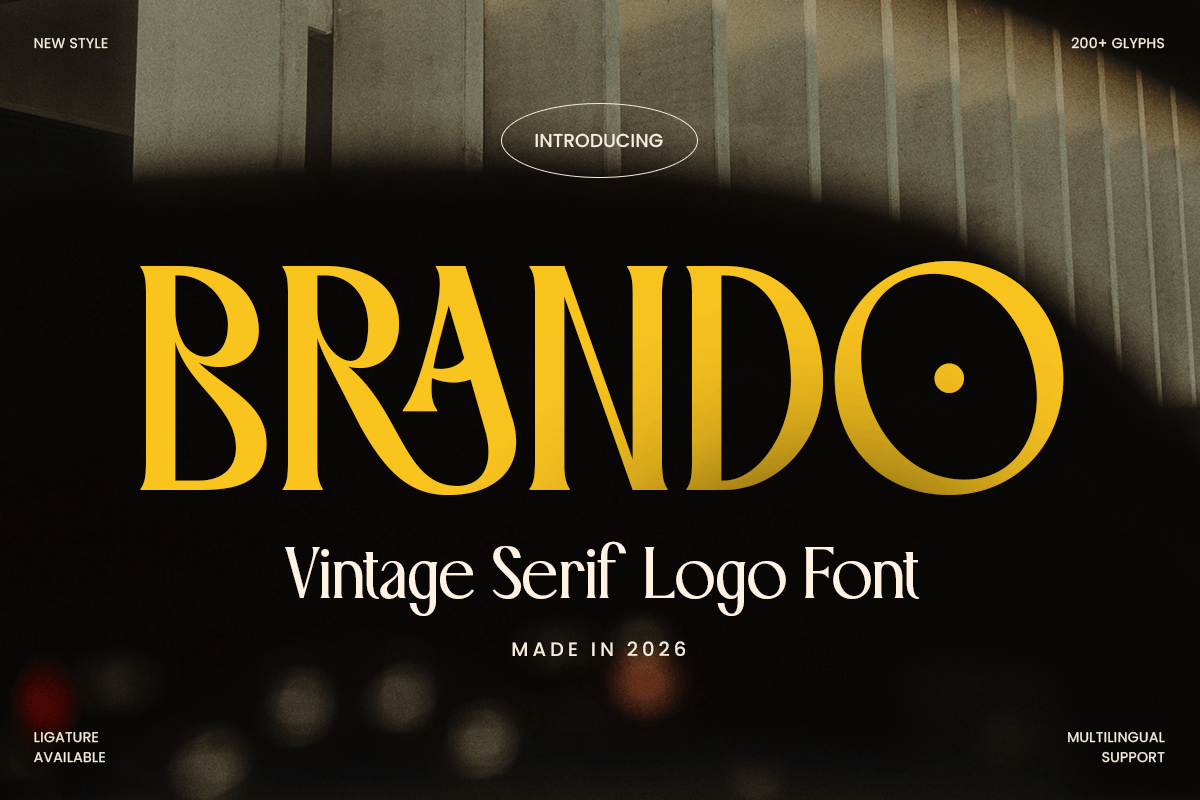
Brando
-Vintage Logo Serif Font
Brando - Vintage Logo Serif Font
BRANDO is a vintage logo serif font inspired by timeless typography and classic craftsmanship. Designed with elegant serif details and balanced proportions, this typeface brings heritage, authenticity, and sophistication to every design project.
Perfect for logos, packaging, labels, editorial layouts, and premium branding, BRANDO combines vintage character with modern usability. Its refined letterforms create a strong visual identity that feels both nostalgic and professional, making it ideal for lifestyle brands, coffee packaging, barbershops, restaurants, and boutique businesses.
Whether used for product labels, signage, magazine titles, or brand marks, BRANDO delivers a distinctive old-world charm while maintaining excellent readability across print and digital applications.
BRANDO – Vintage Logo Serif Font Features
• Classic vintage serif style with timeless appeal
• Perfect for logos, packaging, labels, and branding projects
• Elegant letterforms inspired by heritage typography
• Ideal for lifestyle, hospitality, fashion, and artisan brands
• OpenType features for enhanced typographic flexibility
Celebrate timeless craftsmanship with BRANDO – the ultimate vintage serif font for elegant branding and classic logo design. ✨🏛️